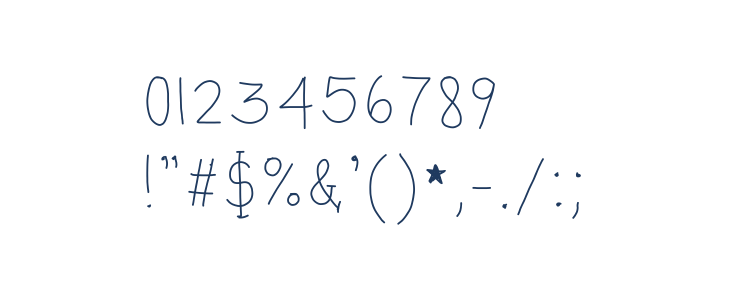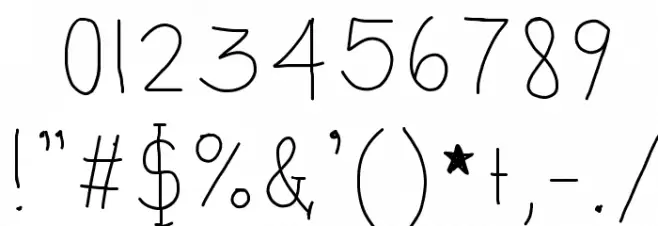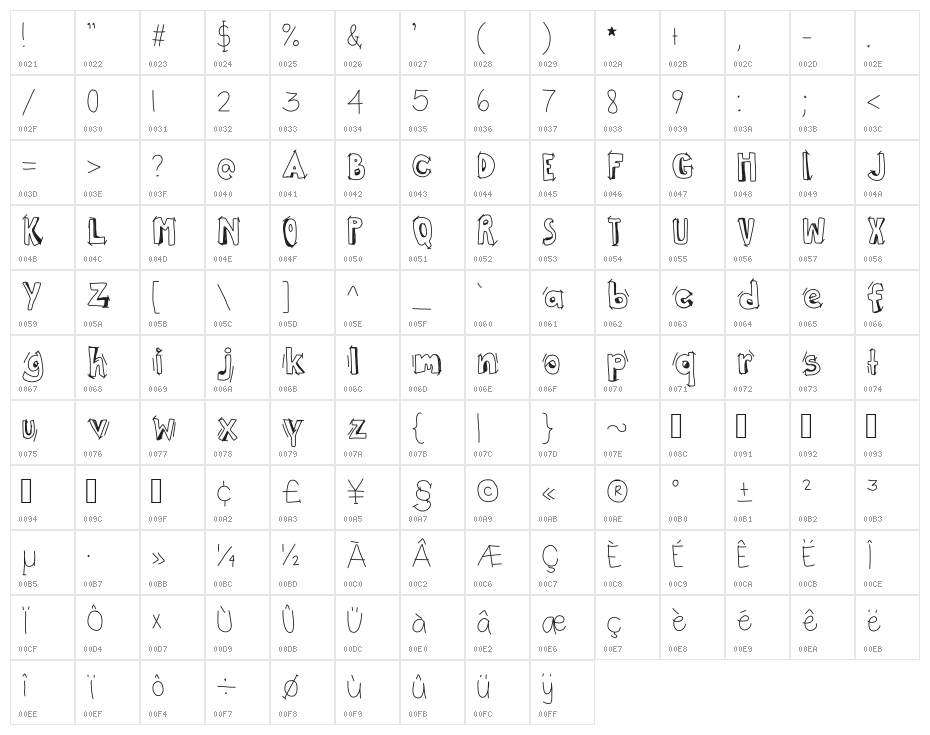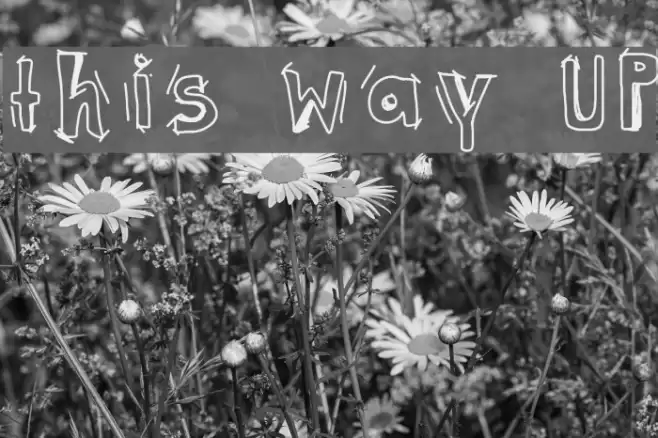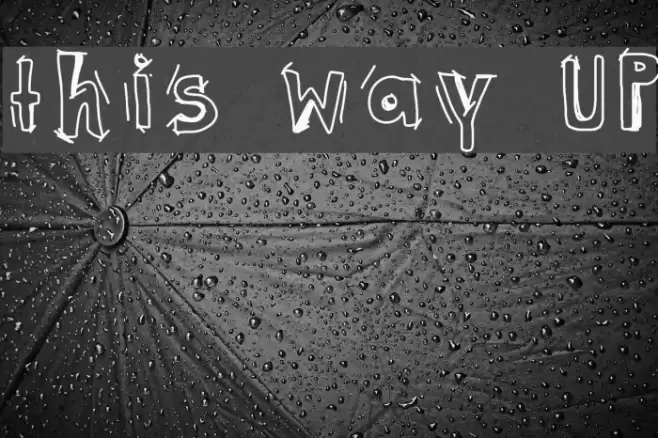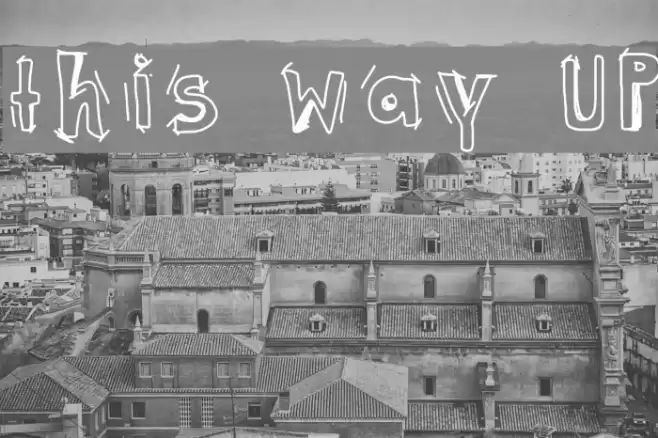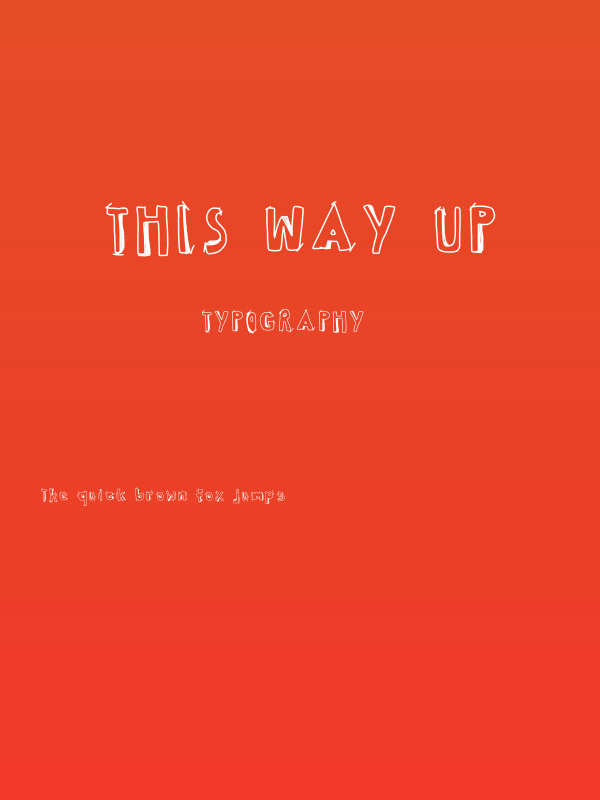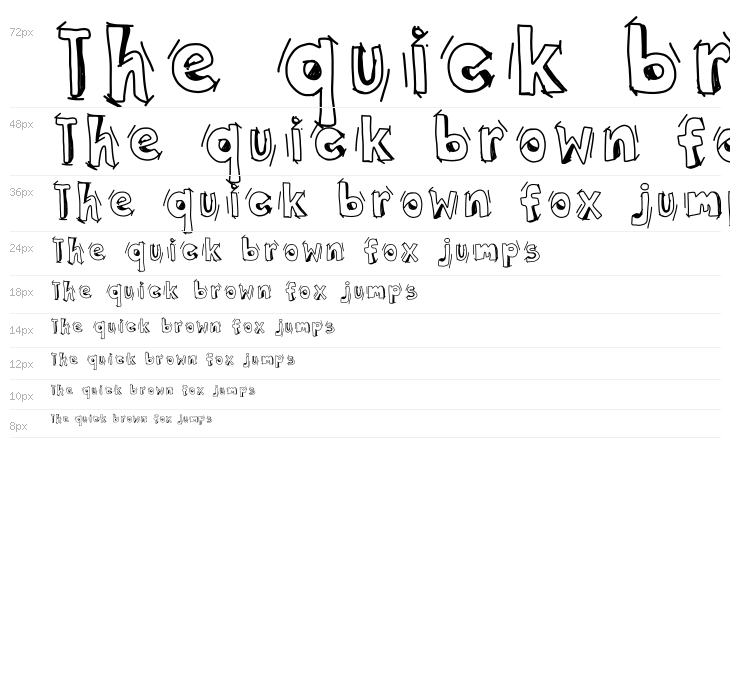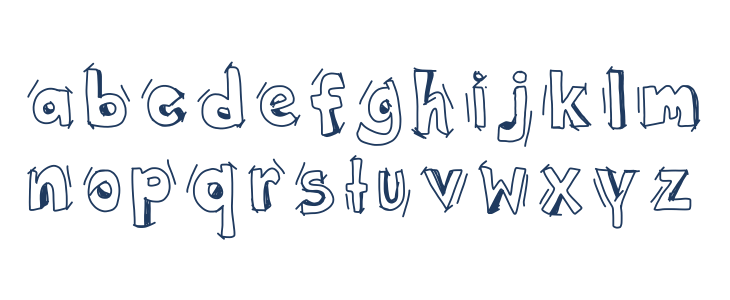
this way UP Font
this way UP Description
This font features a playful and quirky design with a hand-drawn aesthetic. The characters are outlined with a slightly uneven stroke, giving them a casual and informal appearance. The uppercase and lowercase letters maintain a consistent style, with exaggerated curves and angles that add to the whimsical feel. The numbers are similarly styled, with a unique flair that complements the alphabet. Special characters are included, each with its own distinct personality, enhancing the font's versatility. The overall look is dynamic and lively, making it suitable for creative and fun projects.
| Proposed Projects | Ideal for children's books, comic strips, playful branding, and creative posters. |